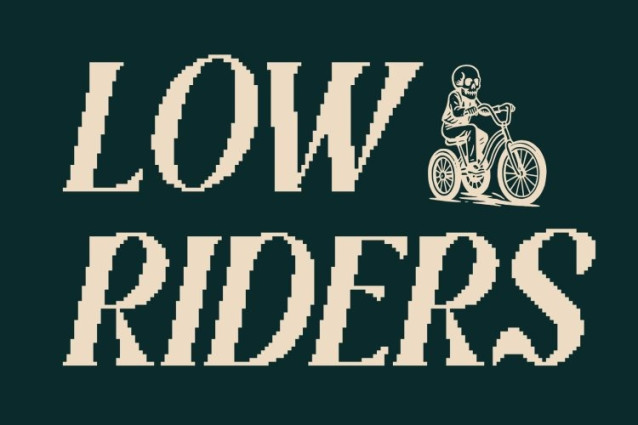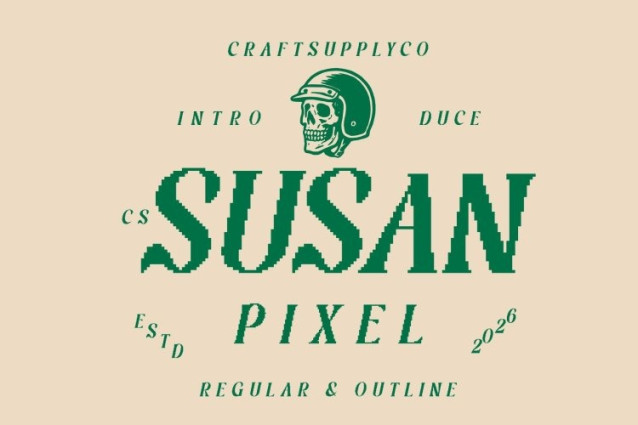
CS Susan Pixel Font
CS Susan Pixel Font This is a stylistic serif font that harmoniously blends modern sensibility with classic elegance. Built upon refined serif foundations, it introduces subtle pixel-inspired detailing that adds a contemporary digital nuance. The result is a sophisticated typeface that feels timeless yet visually distinctive, allowing creativity to shine through every carefully crafted letterform.
Artistic Ligatures with Digital Character
One of the defining features of this font is its unique ligatures, thoughtfully designed to enhance rhythm and personality. These artistic connections elevate typography into a statement element, while the gentle pixel influence adds crisp structure and modern flair. The ligatures enrich expression without sacrificing clarity, maintaining a perfect balance between decoration and functionality.
Timeless Beauty Meets Creative Precision
Balanced proportions, elegant curves, and measured contrast give this font a sense of enduring beauty. The addition of pixel-inspired sharpness introduces a subtle technological edge, making the font feel both classic and current. Confident, refined, and full of character, it brings a premium artistic presence to any composition.
Perfect for Logos and Editorial Design
Ideal for logos, editorial layouts, luxury branding, and artistic posters, excels in projects that demand creative sophistication. Whether featured in magazine headlines or visual identities, it delivers a refined yet imaginative aesthetic where timeless serif tradition meets modern digital precision.